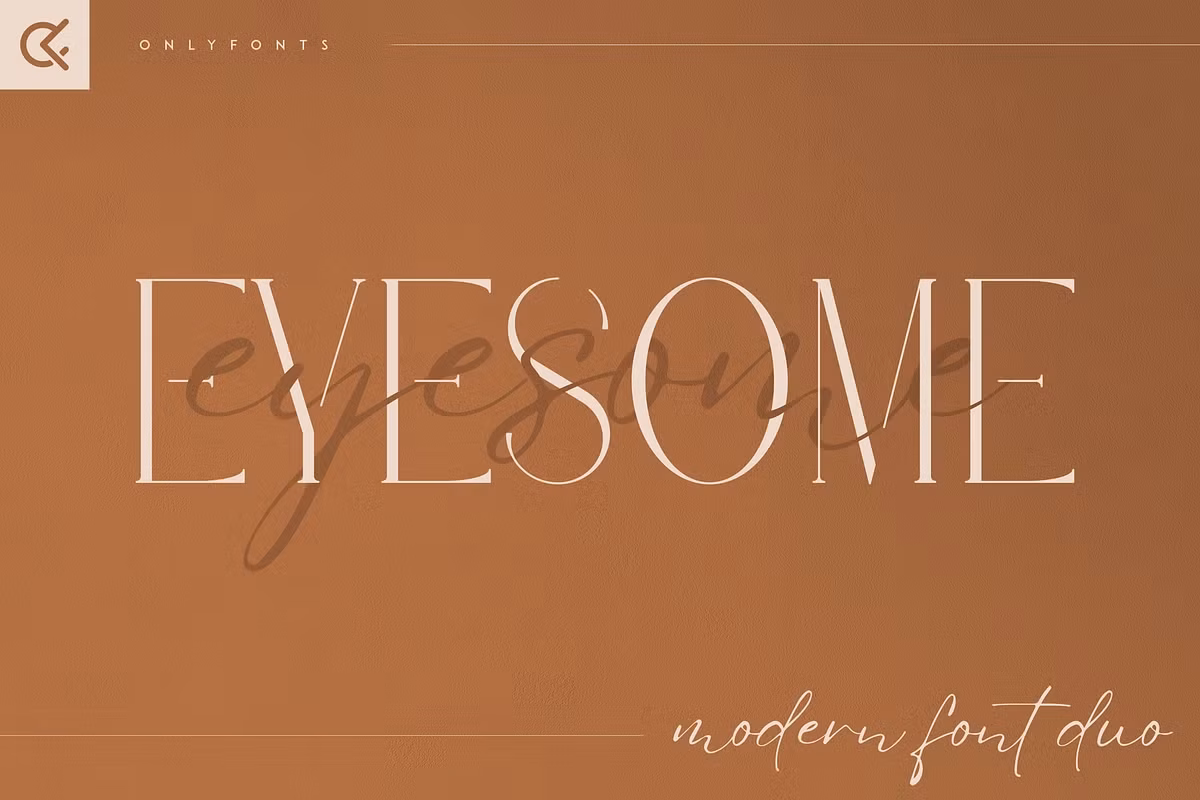
Eyesome - Modern Font Duo Free Download is a stylish and versatile font pair that combines a sleek sans serif with an elegant script. The clean lines of the sans serif font offer balance and clarity, while the flowing script adds a touch of personality and sophistication. This duo is perfect for branding, logos, invitations, editorial layouts, social media graphics, and any project that needs a contemporary yet refined look.
Eyesome - Modern Font Duo Free Download gives you the flexibility to mix modern simplicity with elegant calligraphy, offering a wide range of creative possibilities. Whether you're working on a chic logo, a stylish invitation, or a high-end branding project, this font duo adds a fresh, sophisticated touch to your designs. Download it today and elevate your creative projects with Eyesome!